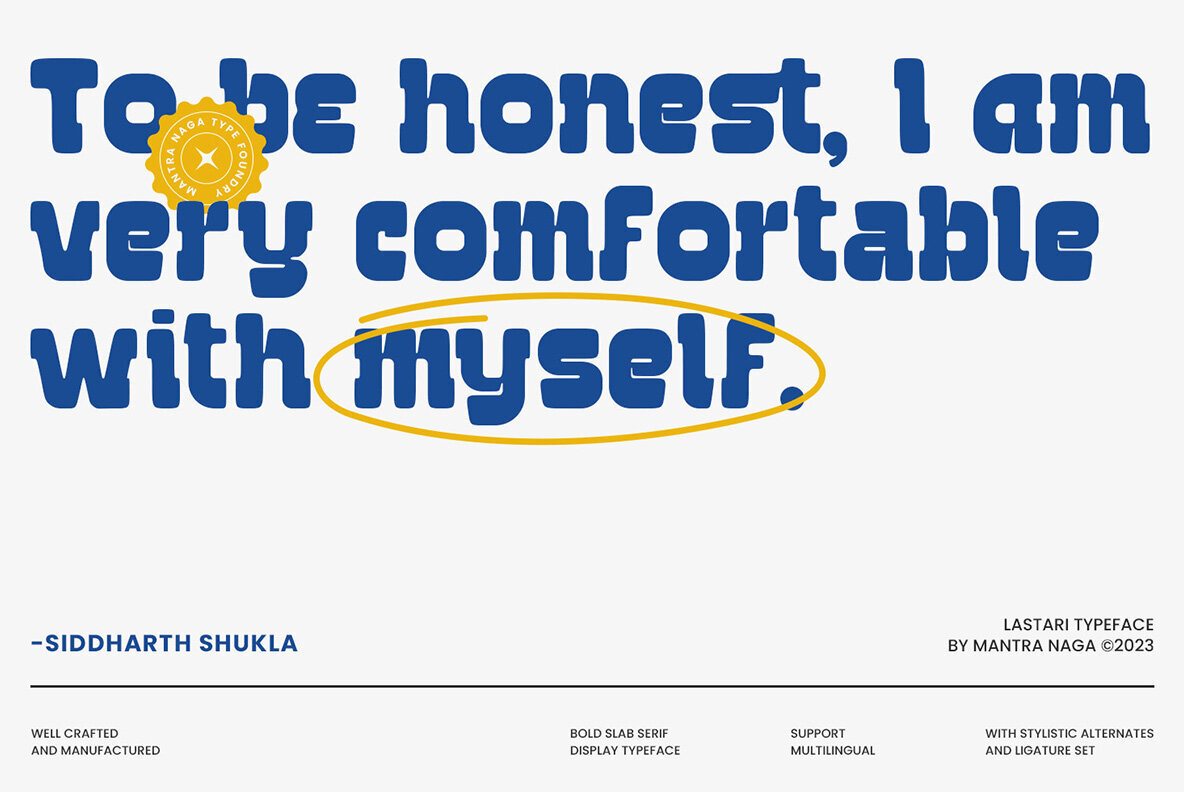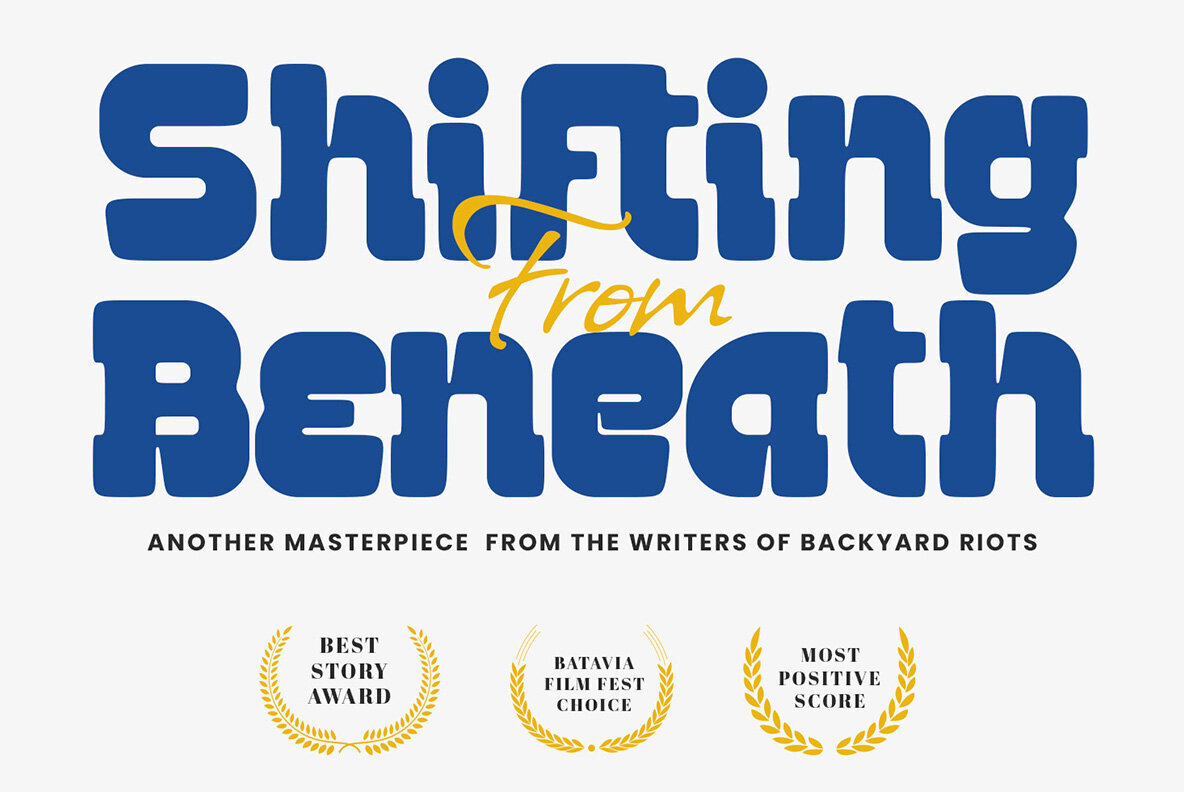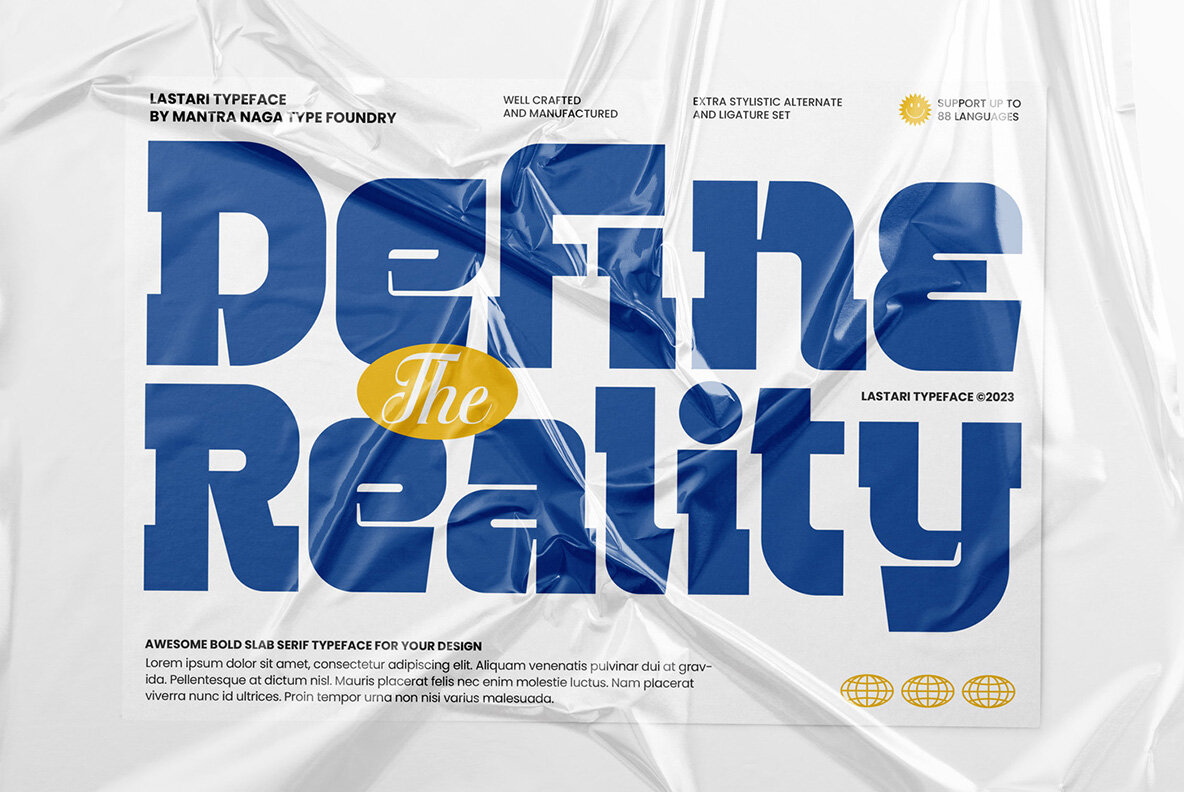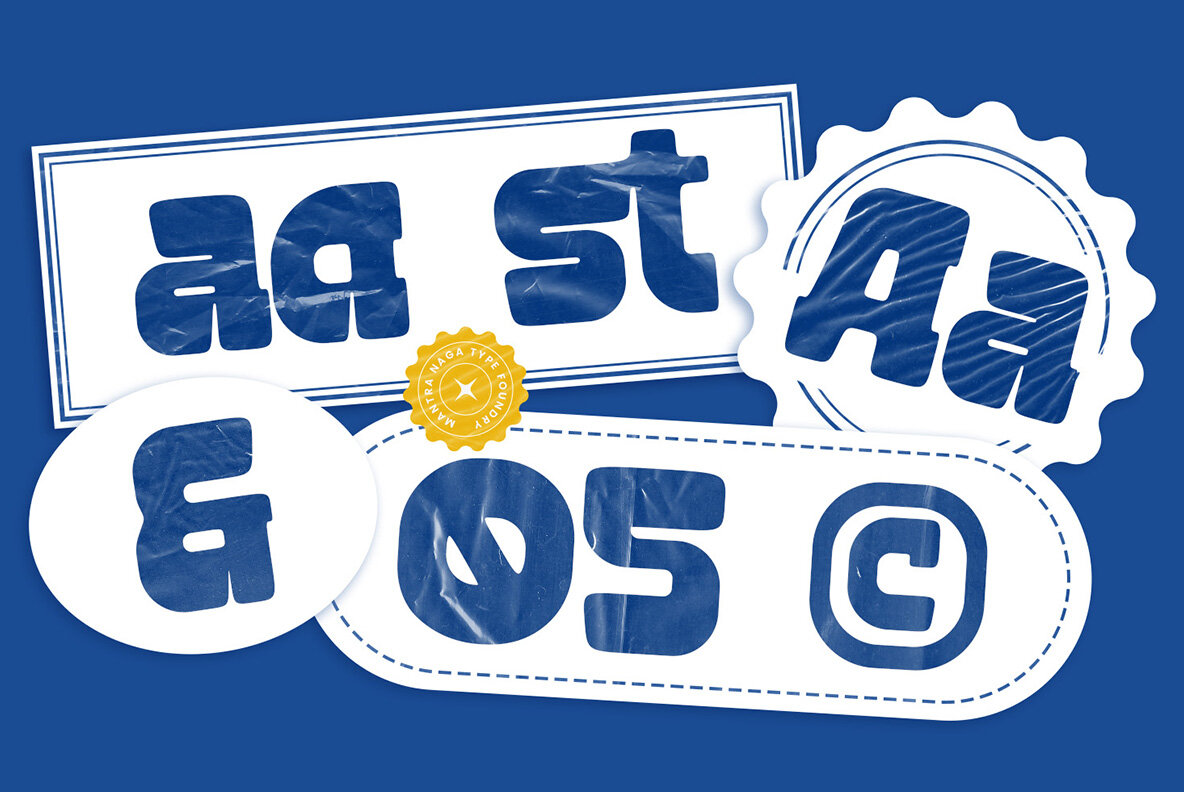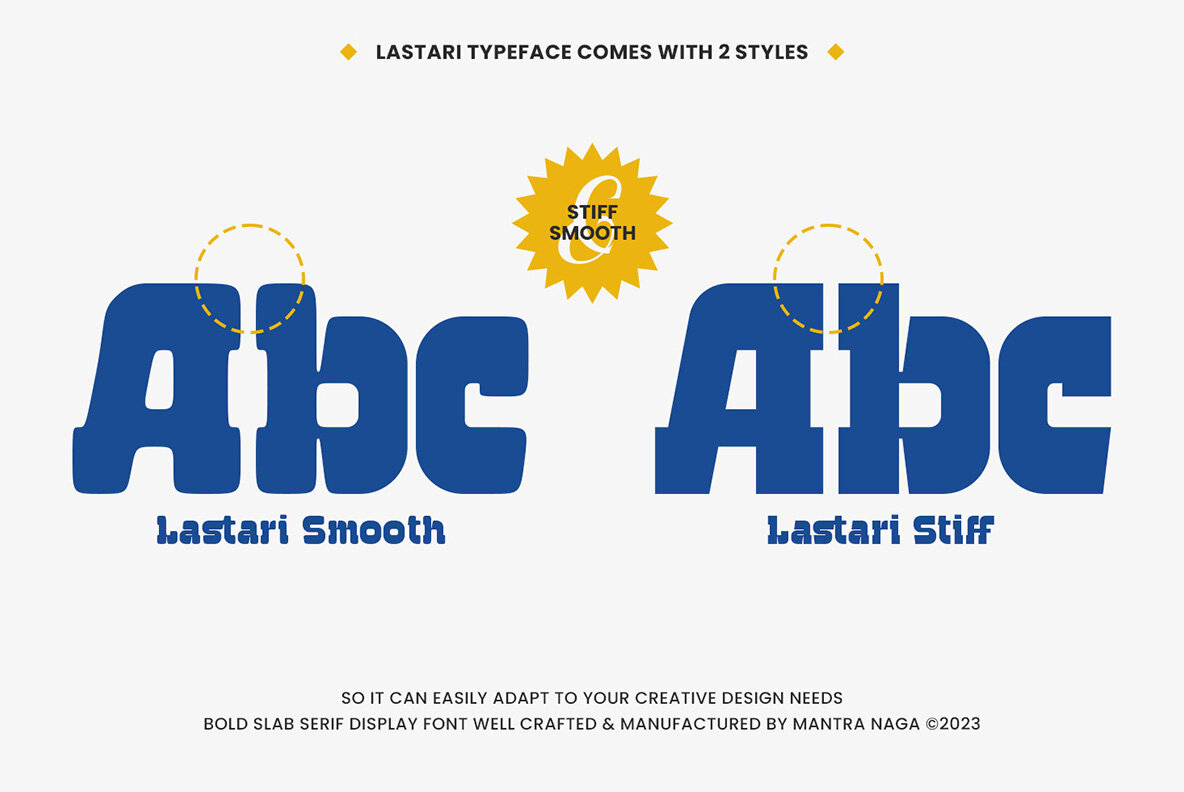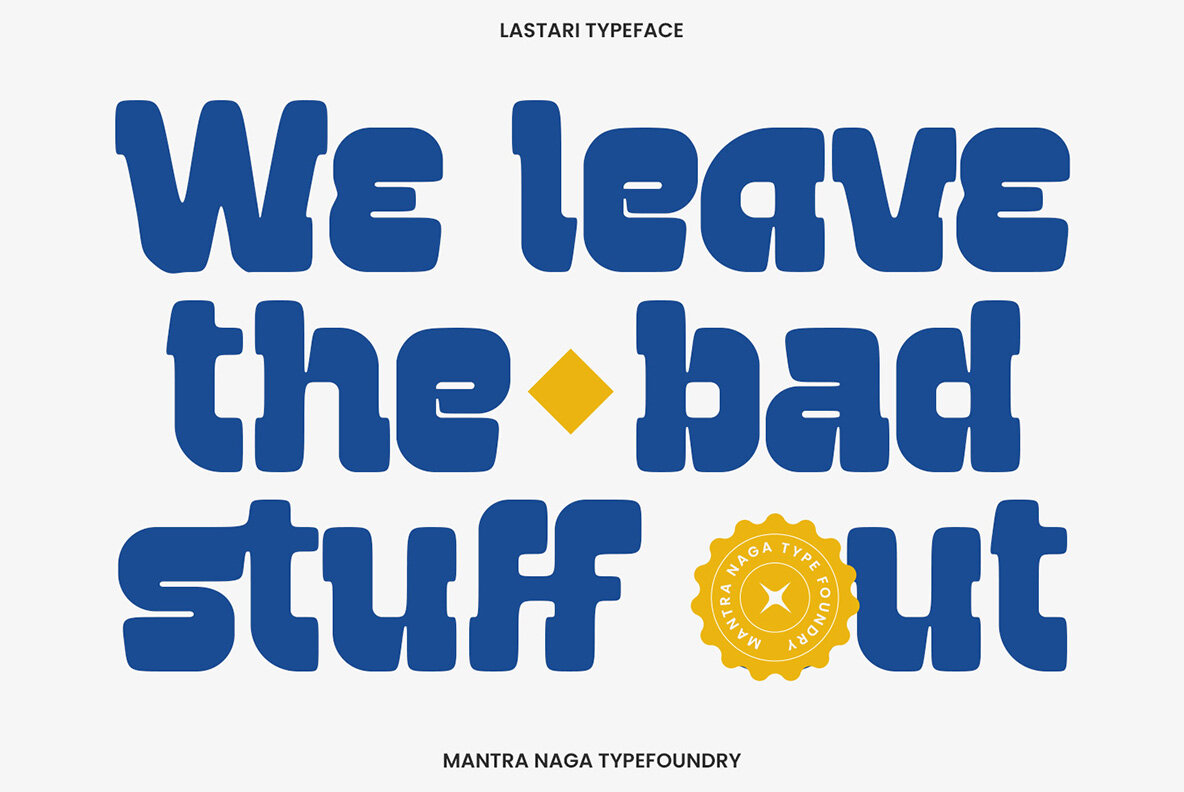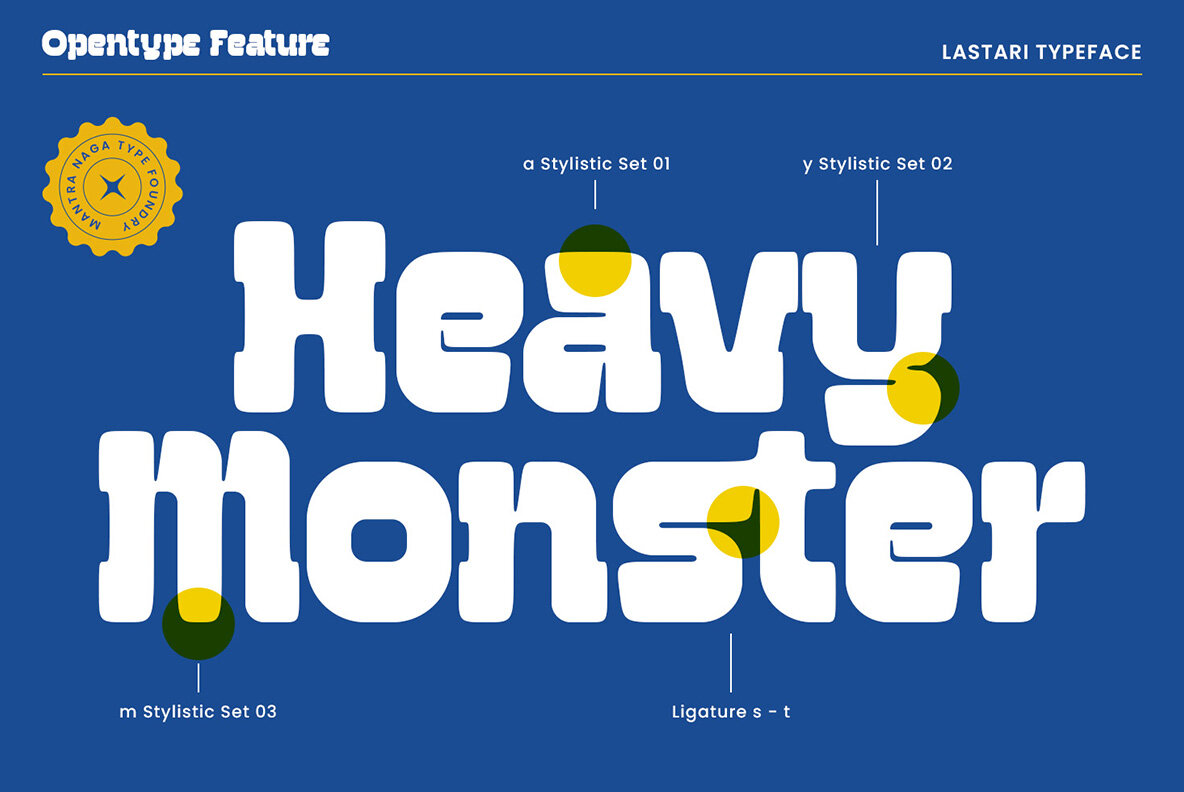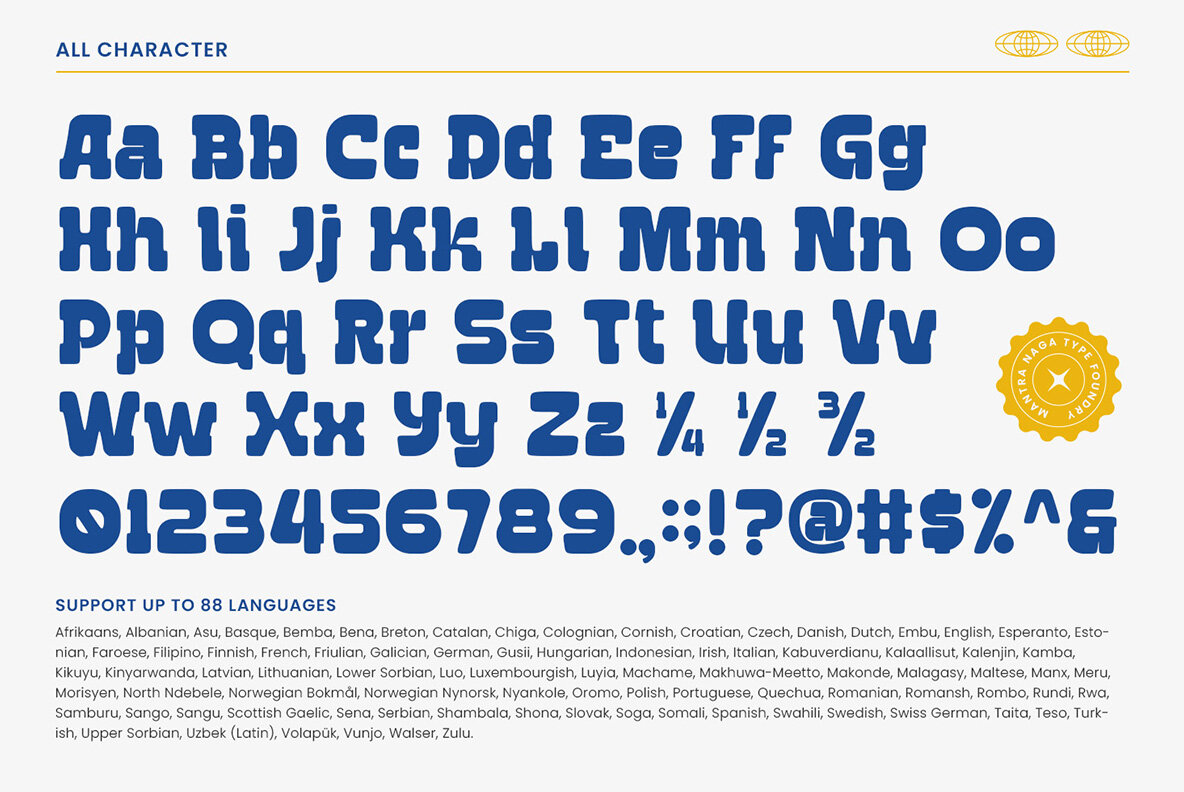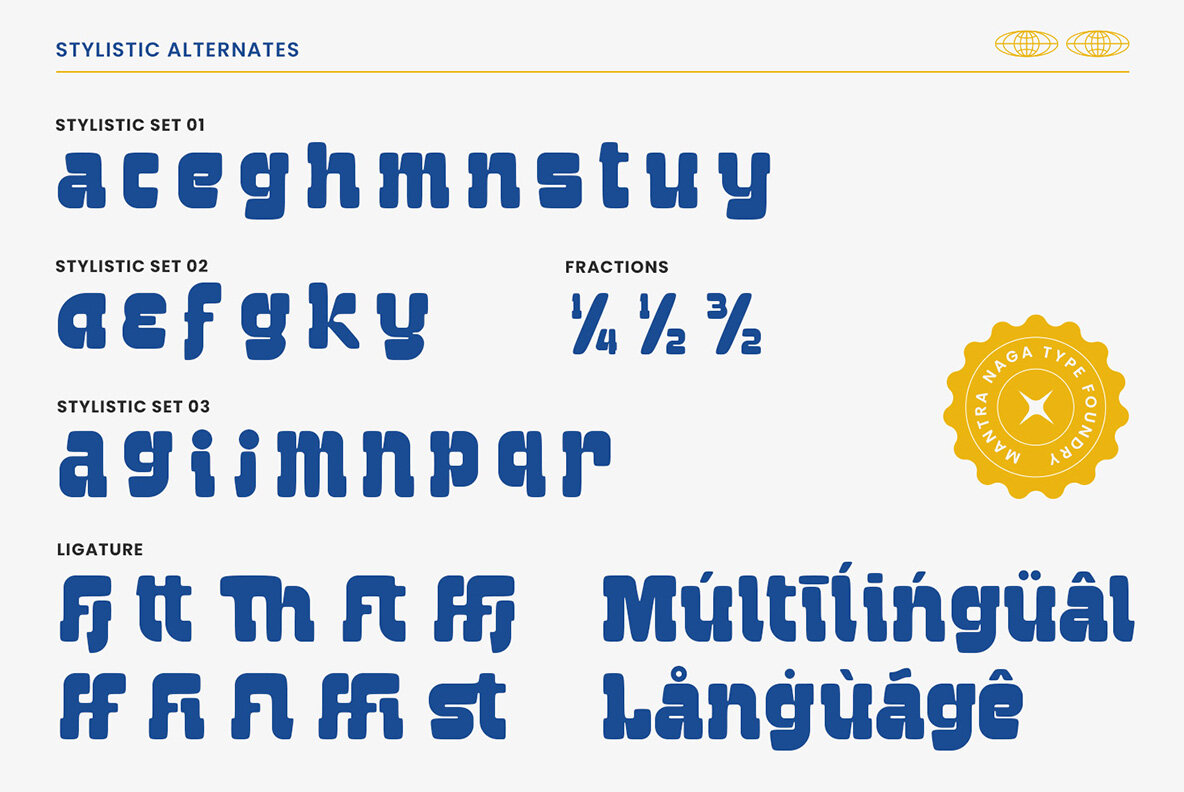
Lastari Font
Lastari – a Bold Slab Serif Display Typeface. This typeface has many alternatives with swashes that can make your lettering/logotype more attractive. This font is suitable for logos and various other formal forms, such as invitations, labels, logos, magazines, books, greeting/wedding cards, packaging, fashion, makeup, stationery, novels, labels, or advertising. This font is PUA encoded, which means you can access all of the glyphs and swashes with ease! 405 Glyphs 8 Opentype features 10 Ligatures, Stylistic Alternates and 2 Style (Smooth and Stiff) Support Multilingual for 88 languages We highly recommend using a program that supports the OpenType feature and the Glyphs pane like many Adobe and Corel Draw applications, so that you can view and access all variations of Glyphs. Thanks for your support of our product and using it in your project.